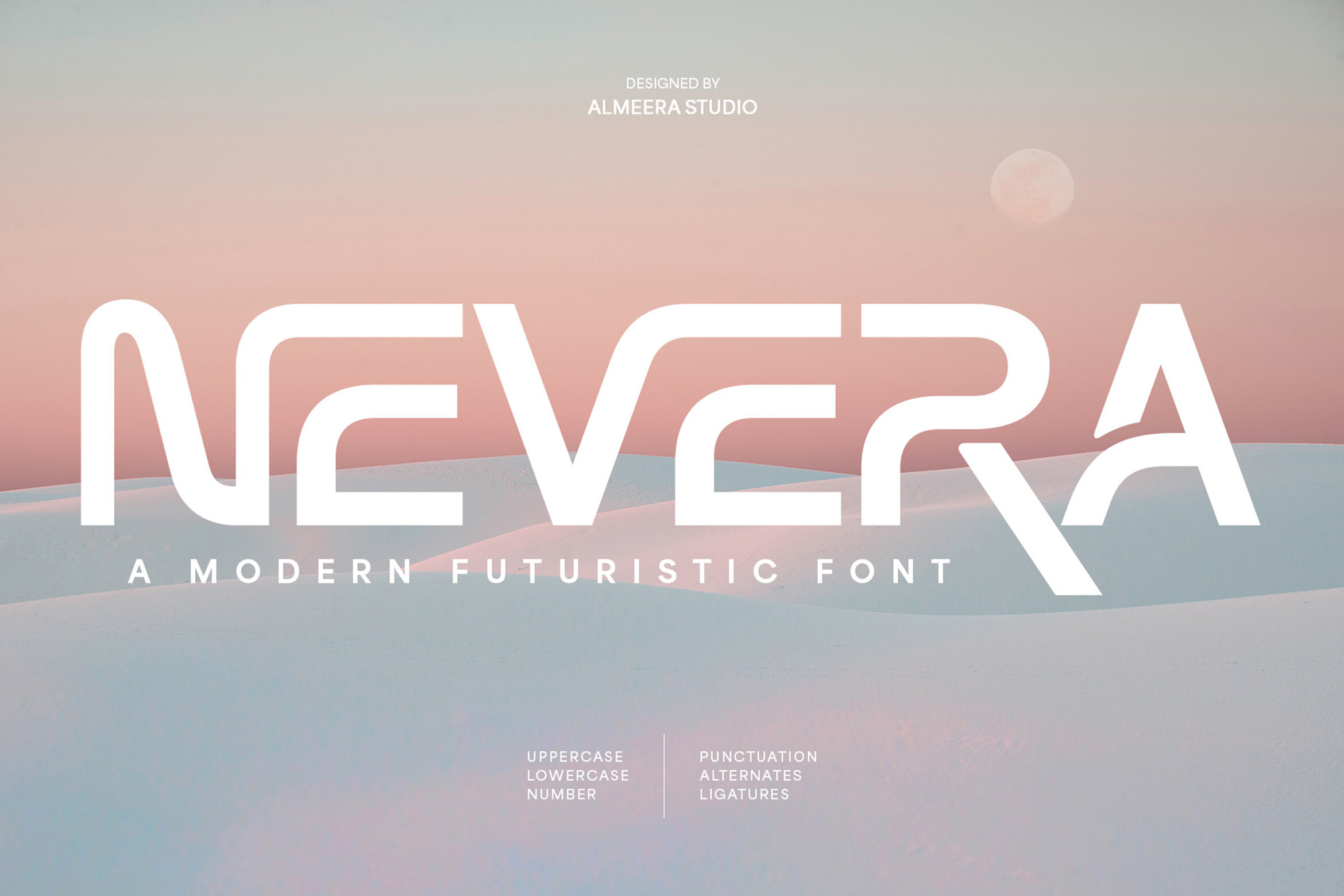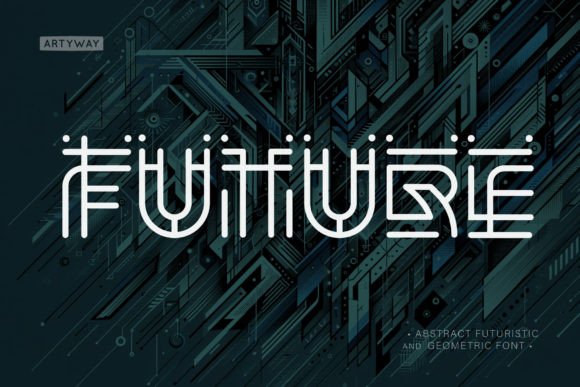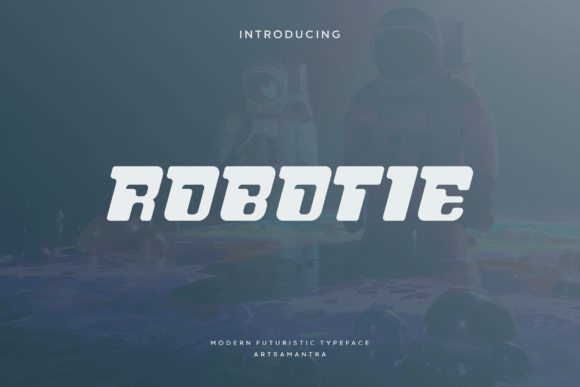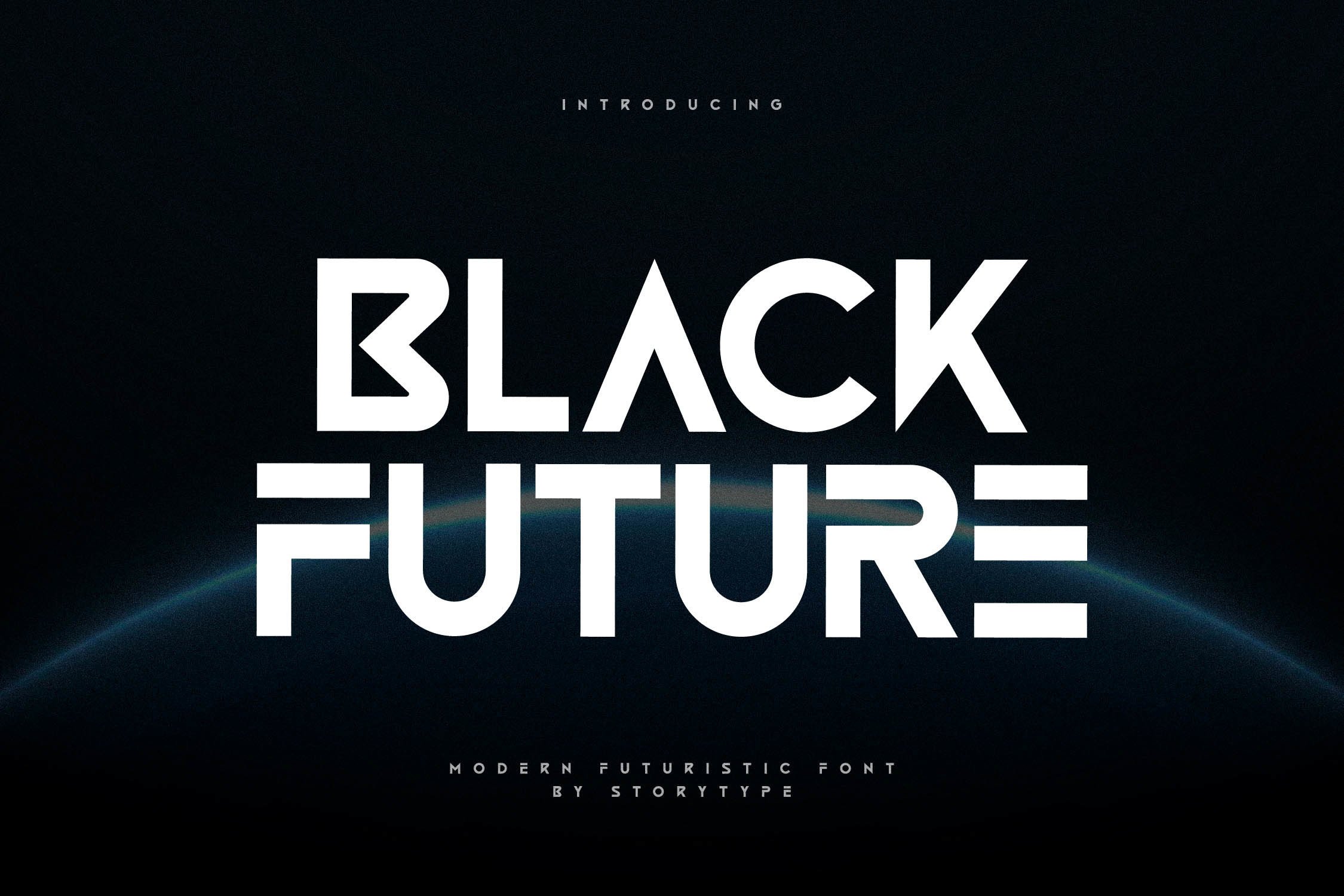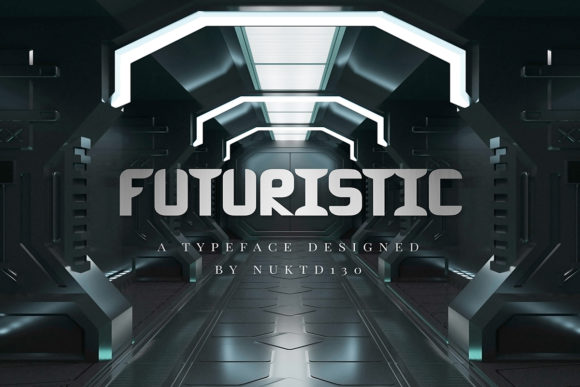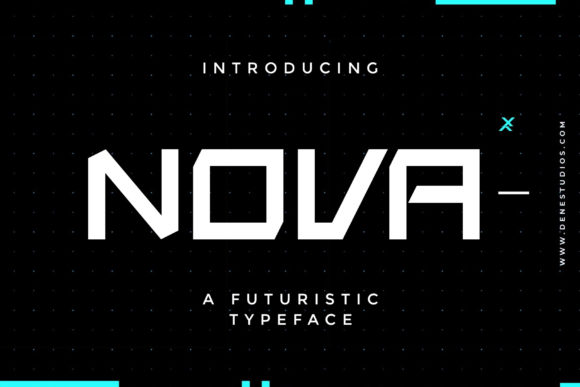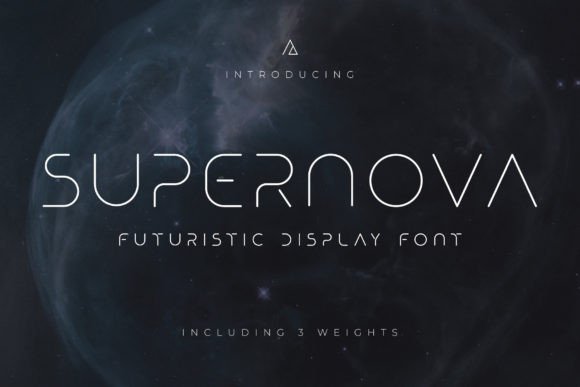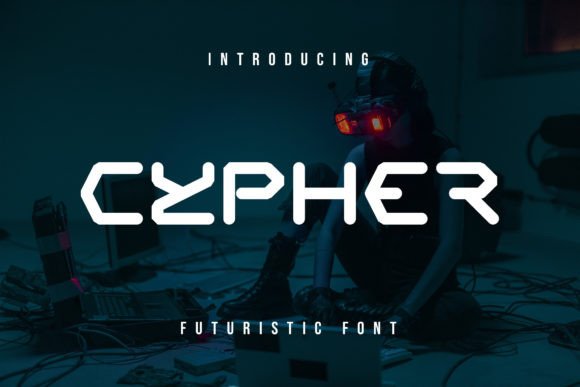
Futuristic fonts free download options have never been more important for modern designers, creators, and ecommerce sellers. The rise of clean, tech-inspired, and forward-thinking design means these creative fonts are essential for standing out—whether you’re launching a new product on Etsy, branding your Amazon shop, or designing eye-catching social media graphics. The right futuristic font instantly communicates innovation and relevance, helping brands capture audiences and projects look polished and professional. Plus, with high-quality resources like Creative Fabrica making these fonts globally accessible, it’s easier than ever to safely download fresh typography for any design niche. Whether your style is cyberpunk, minimal, retro-futuristic, or sleekly modern, this list covers standout options to match your vision. 27 Professional Brush Fonts to Elevate Your Designs With licensing clarity and commercial-use options, these picks empower both seasoned designers and small business owners to add high-impact visual appeal to any project.
Futuristic Font by hl_studio · Creative Fabrica
This Futuristic Font delivers a clean, geometric look ideal for professional branding, startup websites, and high-impact social media headers. Its precise lines and contemporary edge create an ultra-modern vibe suitable for product launches, software interfaces, and tech presentations. Stand out on digital platforms with typography that feels both progressive and approachable.
Futuristic Font by GraphicsNinja · Creative Fabrica
Bold and structured, this font by GraphicsNinja is perfect for statement-making designs such as posters, event banners, product packaging, and logo marks. The sharp, blocky display style adds an unmistakably futuristic flair to both print and digital projects, making it a favorite for cutting-edge brands and YouTube covers.
Nevera Font by Almeera Studio · Creative Fabrica
Nevera brings a neo-grotesque, clean sans look that seamlessly suits editorial layouts, app interfaces, event invitations, or contemporary flyers. Its subtle futuristic nuance makes it both approachable for long copy and punchy for headers. Designers looking for a balance of clarity and style will find this font exceptionally versatile.
Future Font by artyway · Creative Fabrica
Future Font from artyway is a modern, forward-looking typeface that’s perfect for landing pages, SaaS branding, and NFT-inspired graphics. Its minimal yet strong letterforms work flawlessly for headlines, hero banners, and web UI—offering a dynamic, digital sophistication without sacrificing legibility.
Robotie Font by Letterna · Creative Fabrica
Robotie Font offers a tech-inspired, rounded personality that’s as fun as it is futuristic. It’s an outstanding choice for children’s products, science-themed events, educational apps, or friendly digital ads—anywhere you want to convey playful innovation paired with digital style. Its approachable, eye-catching look makes it memorable.
Black Future Font by Storytype Studio · Creative Fabrica
Black Future stuns with sleek, angular contours that evoke a sense of speed and boldness, making it ideal for automotive branding, sports graphics, and energetic marketing materials. This font adds a premium sci-fi touch to posters, apparel, and event promotions where you want your message to dominate visually.
Vibrant Futuristic Font Letter M Logo Graphic by captoro · Creative Fabrica
This vibrant font features a dynamic “M” ideal for logo design, tech branding, esports teams, and innovative start-up presentations. The stylized, energetic letter shapes draw immediate attention, making this font a smart choice for creatives looking to establish a memorable, futuristic identity right from the logo.
Futuristic Font by Digital Design Store · Creative Fabrica
This stylish Futuristic Font pairs geometric forms with a streamlined, light appearance—ideal for website headers, digital ads, or corporate presentations. Its versatility shines in both print and digital contexts, lending a forward-thinking touch to presentations, resume designs, or high-tech business cards.